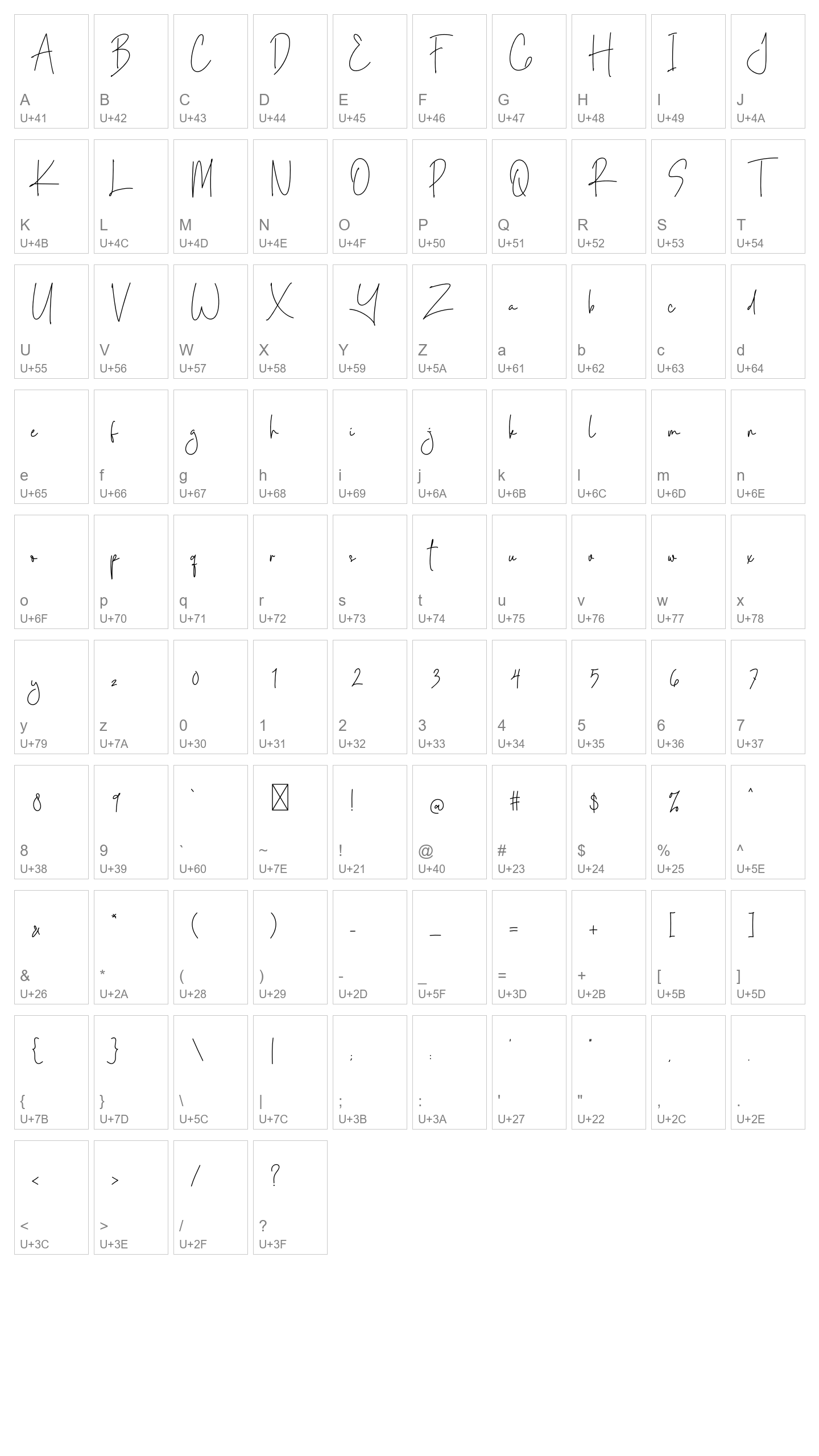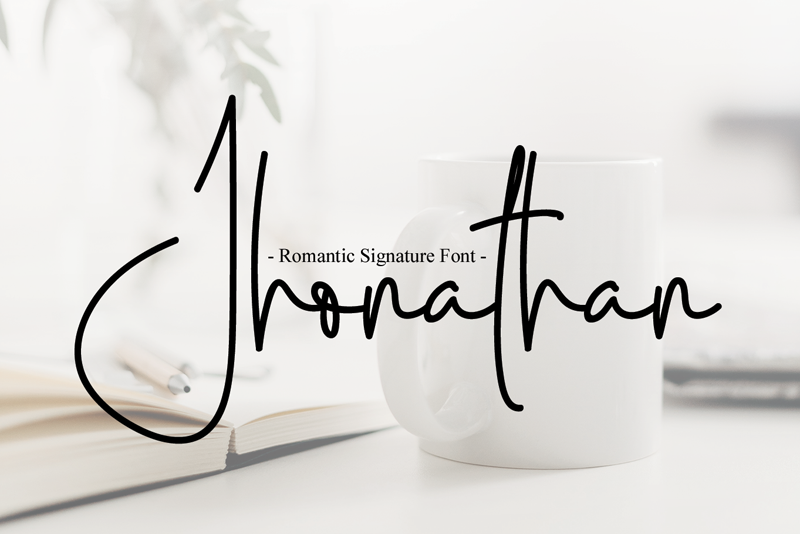
Jhonathan
Jhonathan is a thin lettered handwritten font, masterfully designed to become a true favorite. It maintains its classy calligraphic influences while feeling contemporary and fresh.